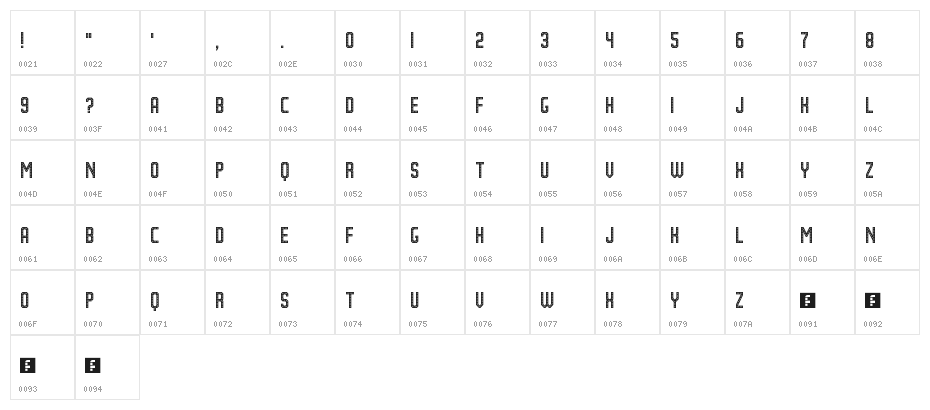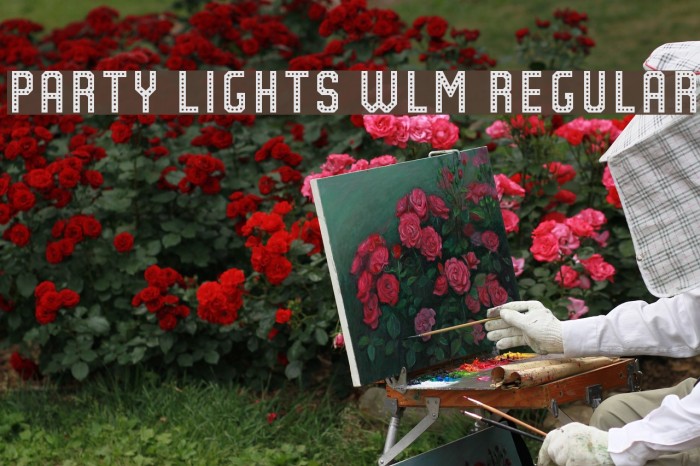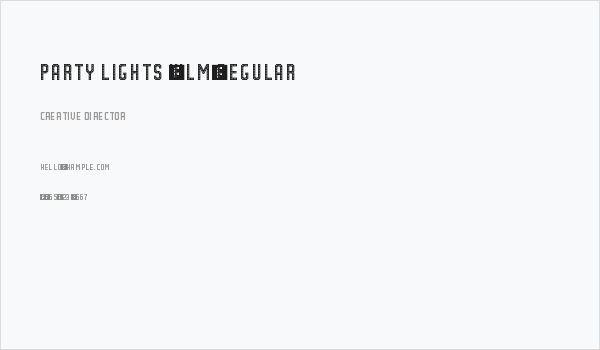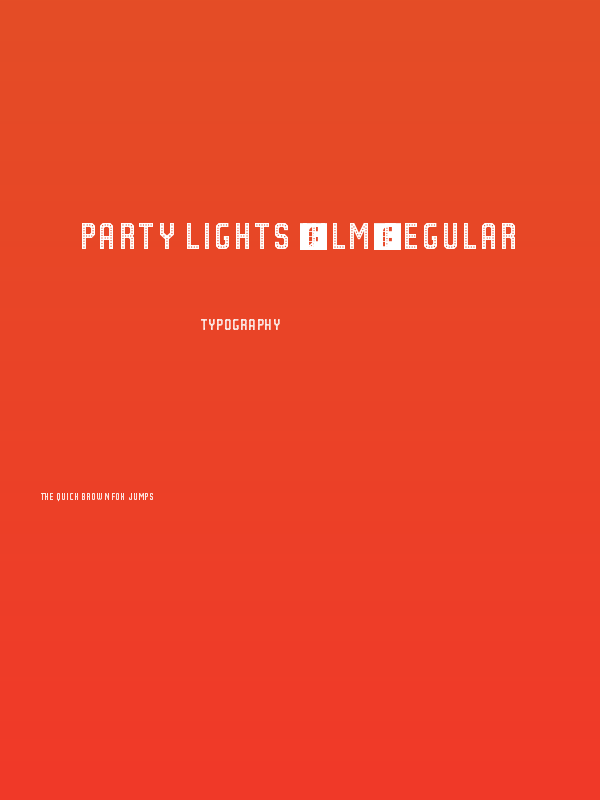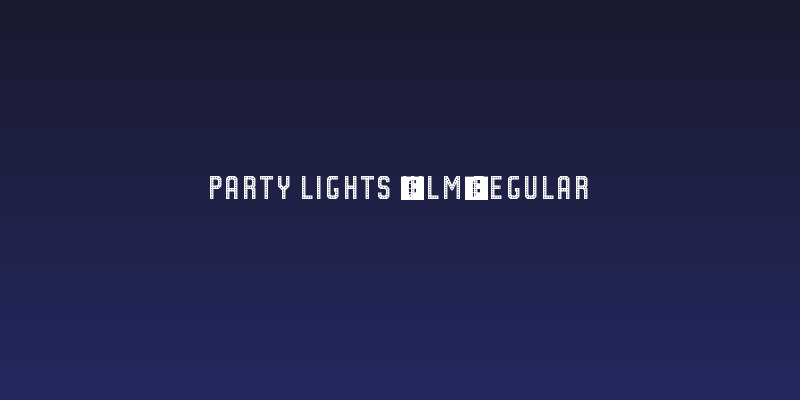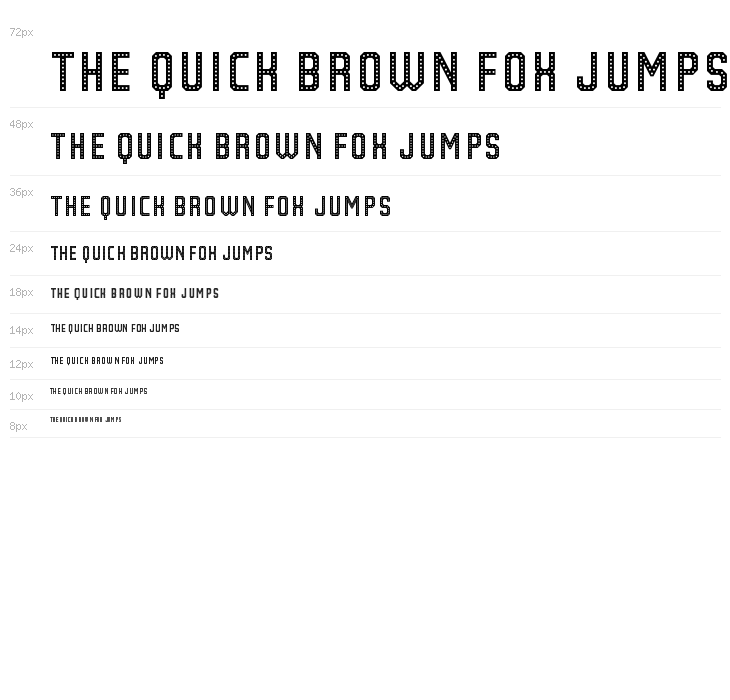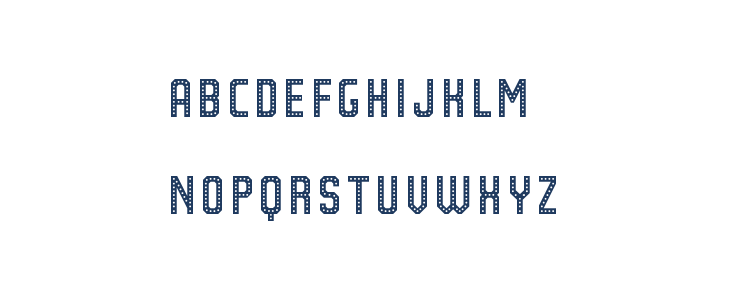
Party Lights [WLM] Regular Font
Party Lights [WLM] Regular Description
This font features a playful and decorative style, reminiscent of marquee lights or carnival signage. Each character is outlined with a series of small, evenly spaced dots, creating a vibrant and eye-catching effect. The uppercase and lowercase letters maintain a consistent geometric form, with straight lines and sharp angles. The numerals and special characters follow the same design principles, ensuring uniformity across the font. This font is ideal for projects that require a fun and lively aesthetic, such as party invitations, event posters, or themed branding.
| Proposed Projects | Ideal for party invitations, event posters, themed branding, and festive signage. |